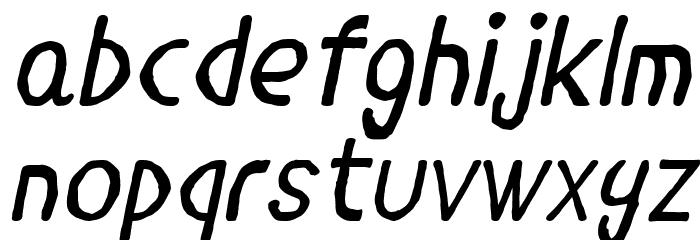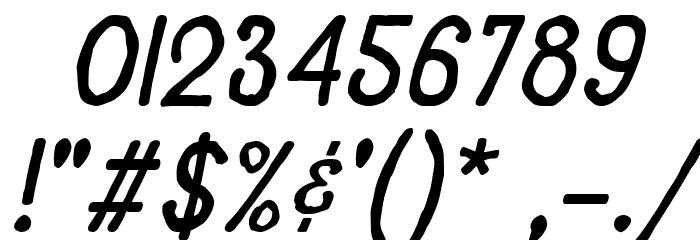
Mkhedruli Grunge Italic Font
This font exhibits a unique grunge style with an italic slant, giving it a dynamic and edgy appearance. The characters are slightly irregular, contributing to a hand-drawn feel that is both artistic and informal. The uppercase and lowercase letters maintain a consistent style, with rounded edges and a slightly condensed form. Numbers and special characters follow the same aesthetic, ensuring uniformity across all elements. The font's design is perfect for projects that require a touch of creativity and individuality, making it ideal for artistic and modern applications.
A grunge-style italic font with a hand-drawn, artistic flair.
- Proposed Projects: Ideal for album covers, posters, creative branding, and artistic projects.
- Overall Style: Modern, Artistic
- Use Case: Headlines, Logos, Creative projects